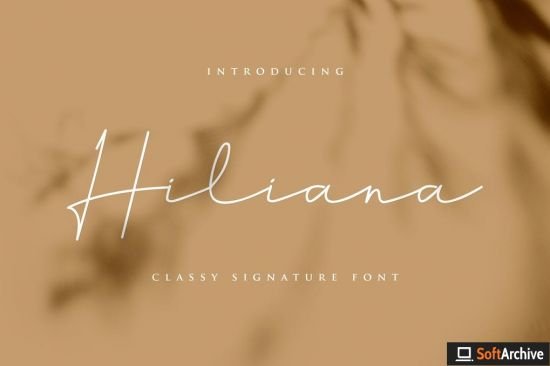
Introducing Hiliana is a classy signature font. Its characteristic flow and signature style makes it perfect to use for logos, handwriting, signatures, quotes, badges, labels, packaging design, blog headlines or simply use it in your next design project.